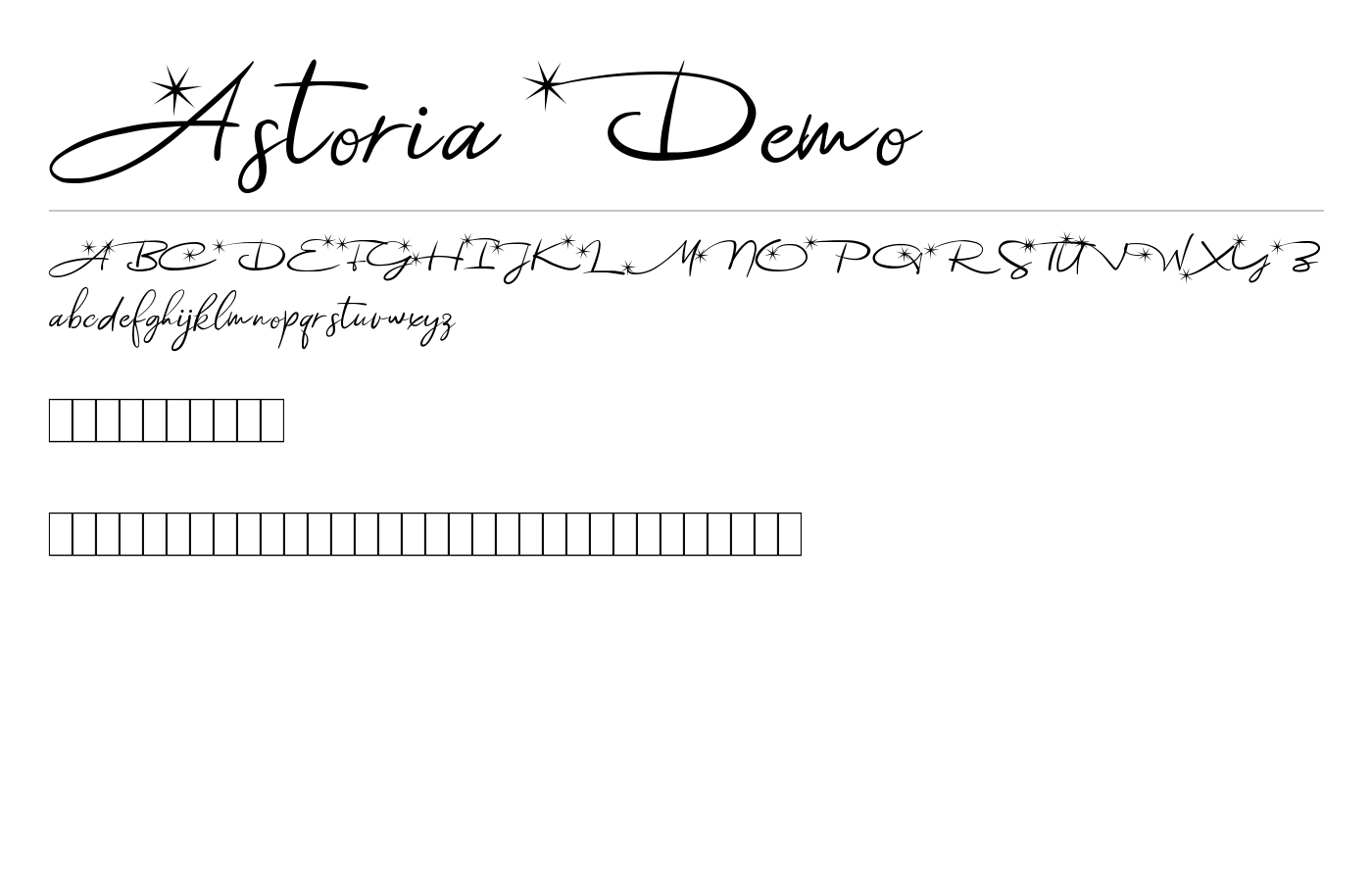
Astoria Demo is a delicate script font that combines elegance with a whimsical touch, featuring smooth, flowing lines accented by star-like sparkles on uppercase letters. Its thin strokes and graceful curves give it a light, airy feel that suits creative and feminine designs, making it ideal for invitations, greeting cards, and branding that seeks a charming, sophisticated look. This font works best in decorative, headline uses where its unique stylistic elements can shine without compromising readability.
Astoria Demo Font
About Astoria Demo Font